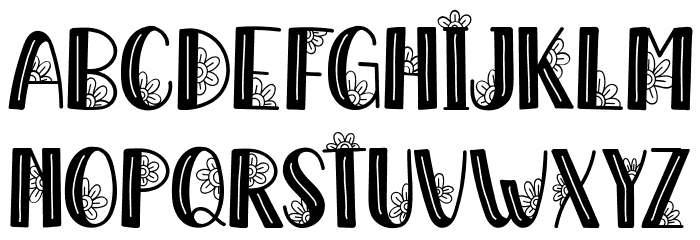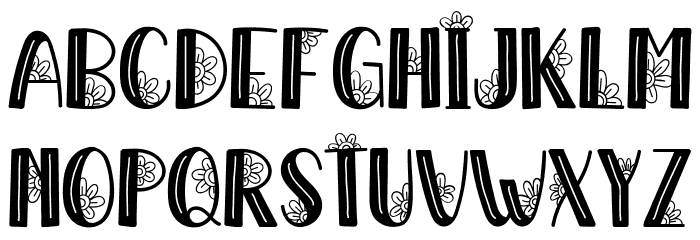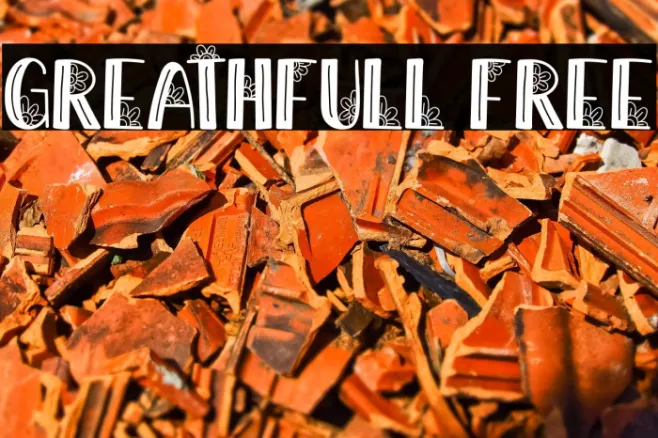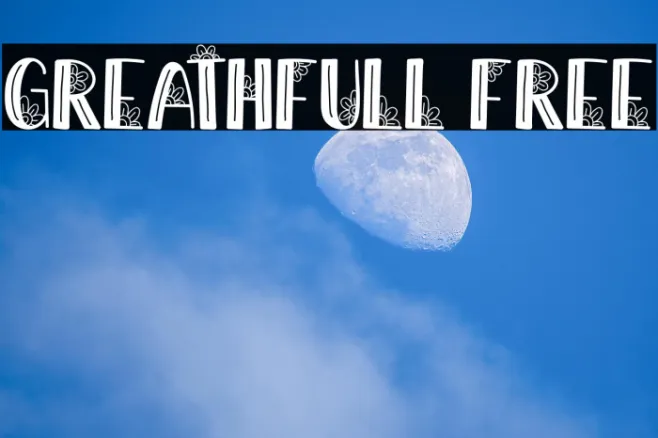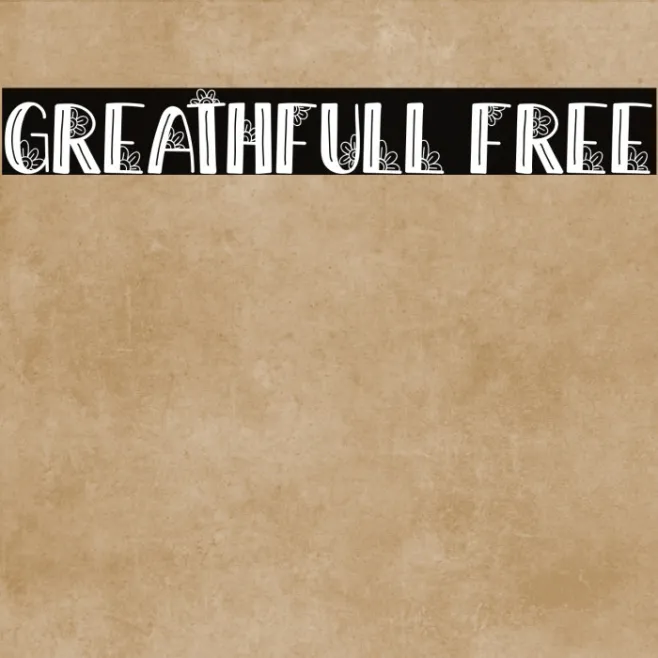
Greathfull FREE Font
This font features a playful and decorative style, characterized by bold, uppercase letters adorned with intricate floral patterns. Each letter is uniquely embellished, adding a whimsical and artistic touch. The design is consistent across the alphabet, making it ideal for creative and eye-catching projects. The floral elements are integrated seamlessly into the letterforms, enhancing the overall aesthetic without compromising readability. This font is perfect for projects that require a fun and lively appearance, such as invitations, posters, or branding materials that aim to convey a sense of joy and creativity.
A playful, decorative font with bold letters and floral embellishments.
- Proposed Projects: Ideal for invitations, posters, branding, and creative projects requiring a whimsical touch.